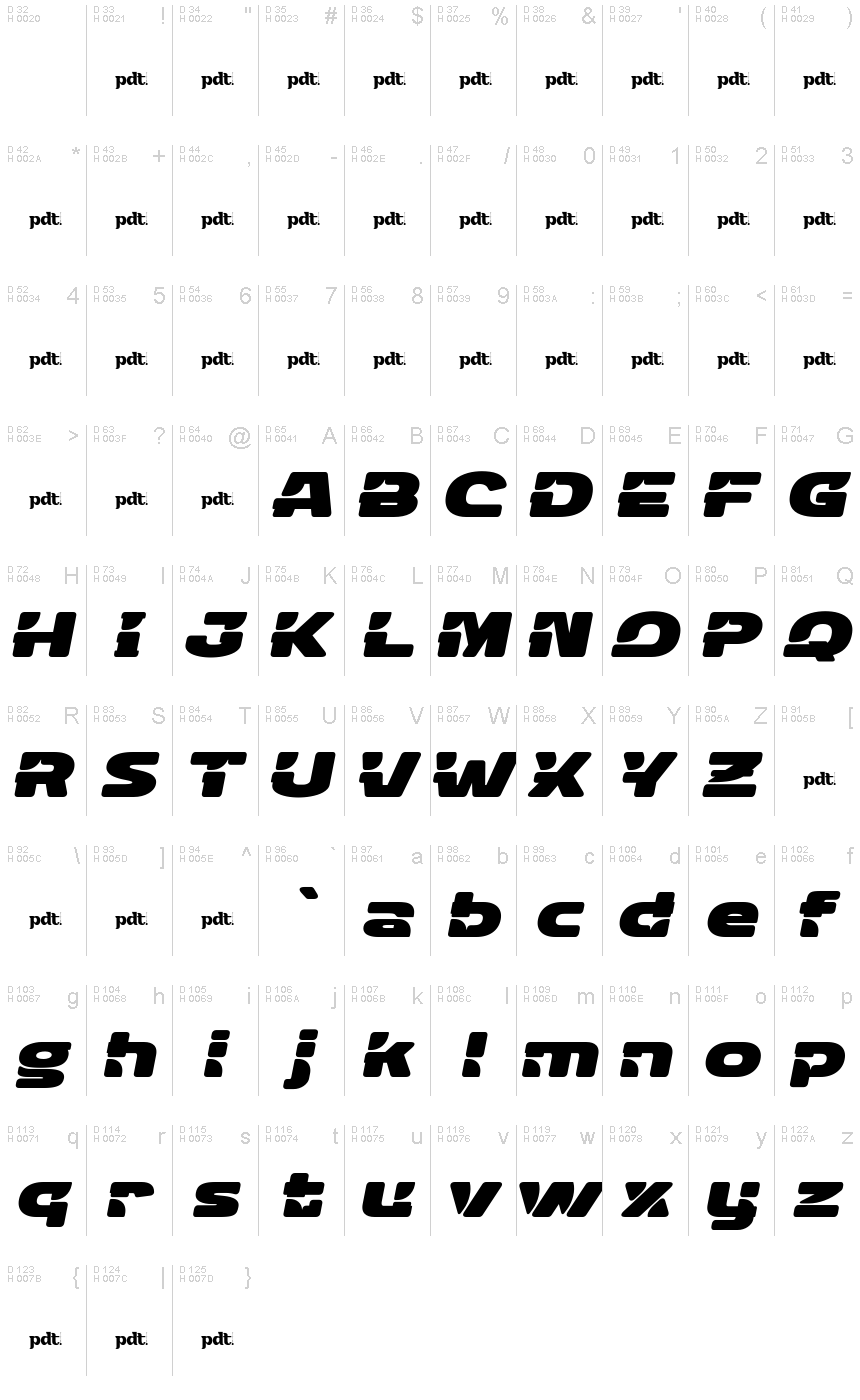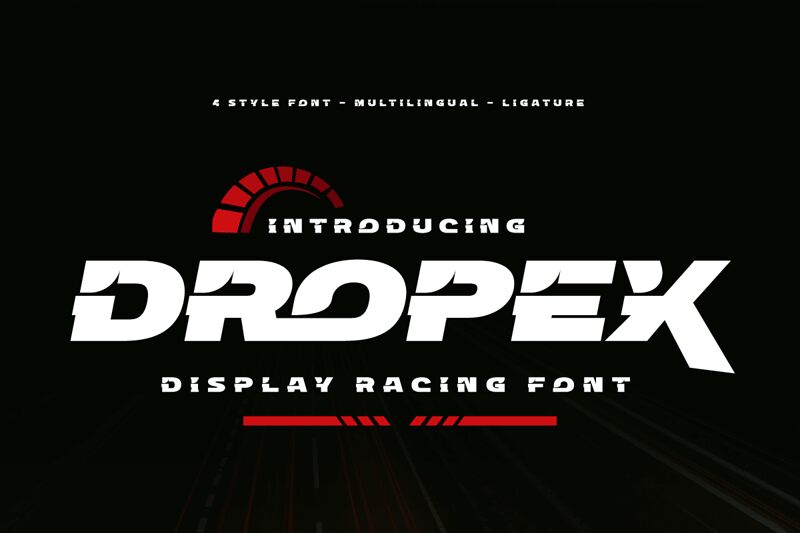
DROPEX Round Slant
Dropex Round Slant font from the Dropex family, crafted by productype, embodies a bold and expanded techno aesthetic. This display typeface is ideal for futuristic and innovative designs. Its dynamic slanted structure and rounded forms make it visually striking, capturing attention with its modern edge.
Perfect for digital projects, tech branding, and edgy event invitations, the Dropex Round Slant font is a versatile free font available for download. Its unique style enhances any design seeking a contemporary touch.